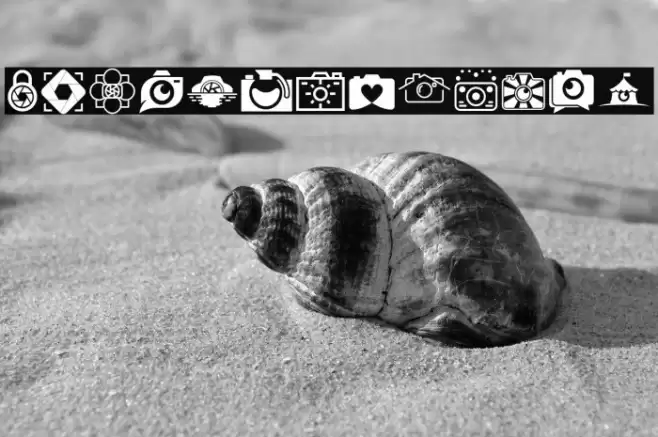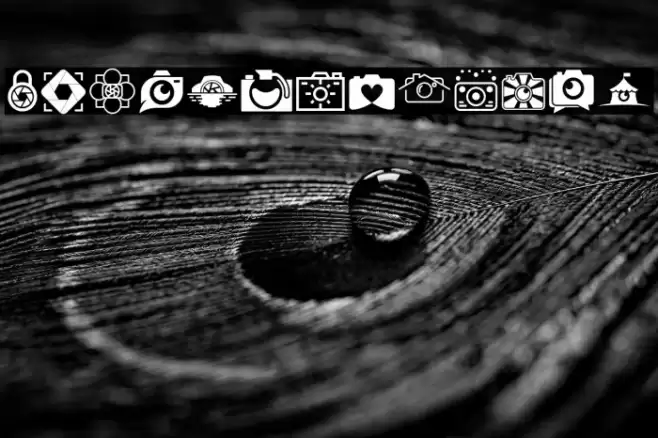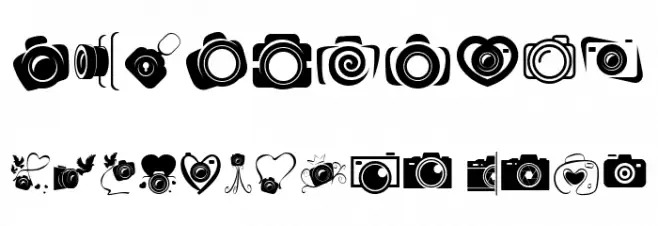
CAMERA - FOTOGRAAMI Font
CAMERA - FOTOGRAAMI Description
A decorative display font composed entirely of camera-themed pictograms, with each character represented by a unique camera or photography-related icon. The icons are bold, highly stylized, and vary in complexity, featuring both solid and outlined elements, as well as playful motifs like hearts, wings, and abstract shapes.
A bold, decorative icon font featuring camera and photography motifs from Uncategorized fonts.
- Font: CAMERA - FOTOGRAAMI
- Proposed Projects: Photography branding, event invitations, creative posters, social media graphics, logo design for photographers, themed merchandise.
- Overall Style: Decorative, Playful, Thematic
- Use Case: Logos, Headlines, Themed graphics, Posters